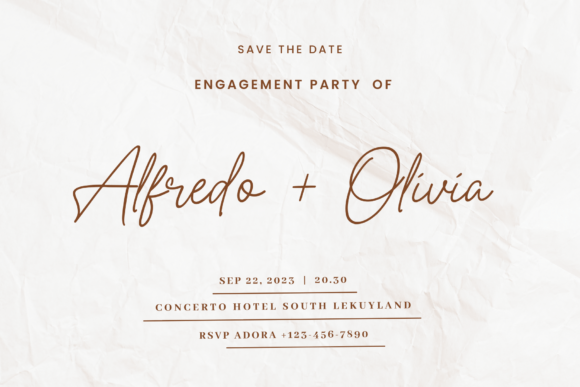
Perfect Beloved Font
Perfect Beloved – Monoline Font, this font is perfect for branding, invitations, stationery, wedding designs, social media posts, advertisements, product packaging, product designs, labels, photography, watermarks, special events, and more.